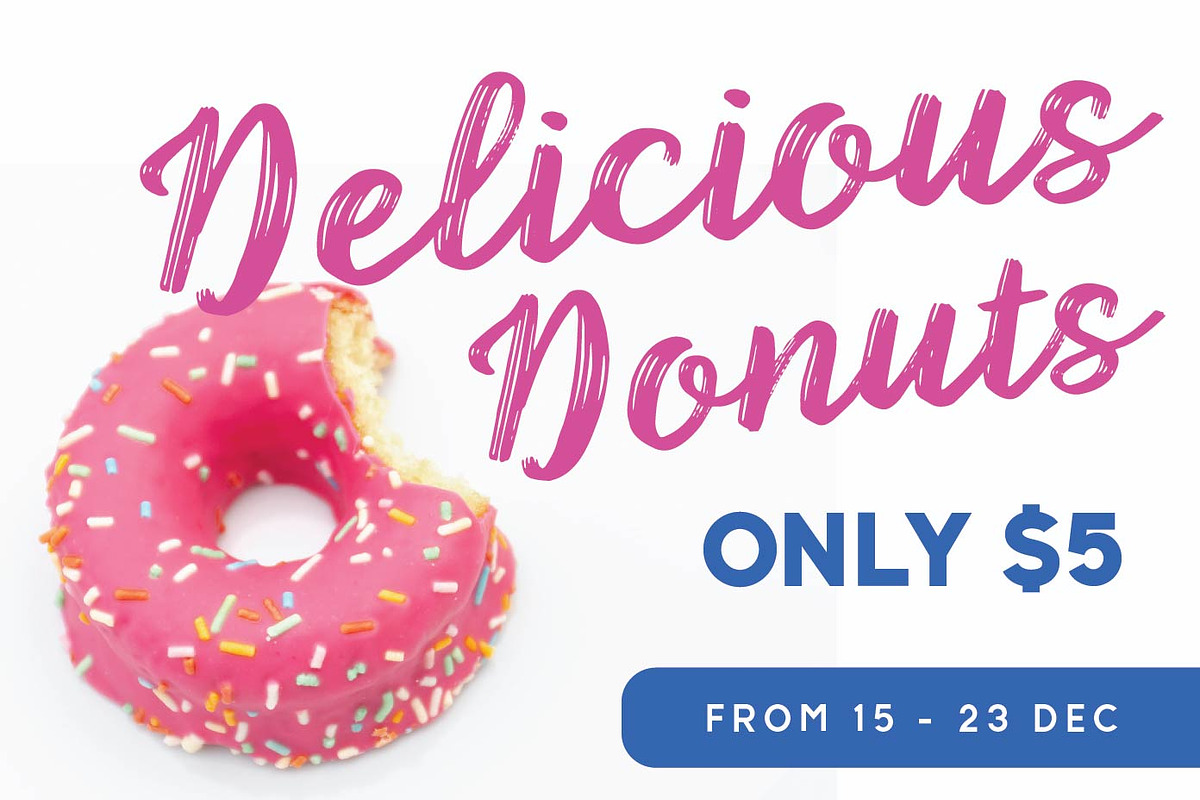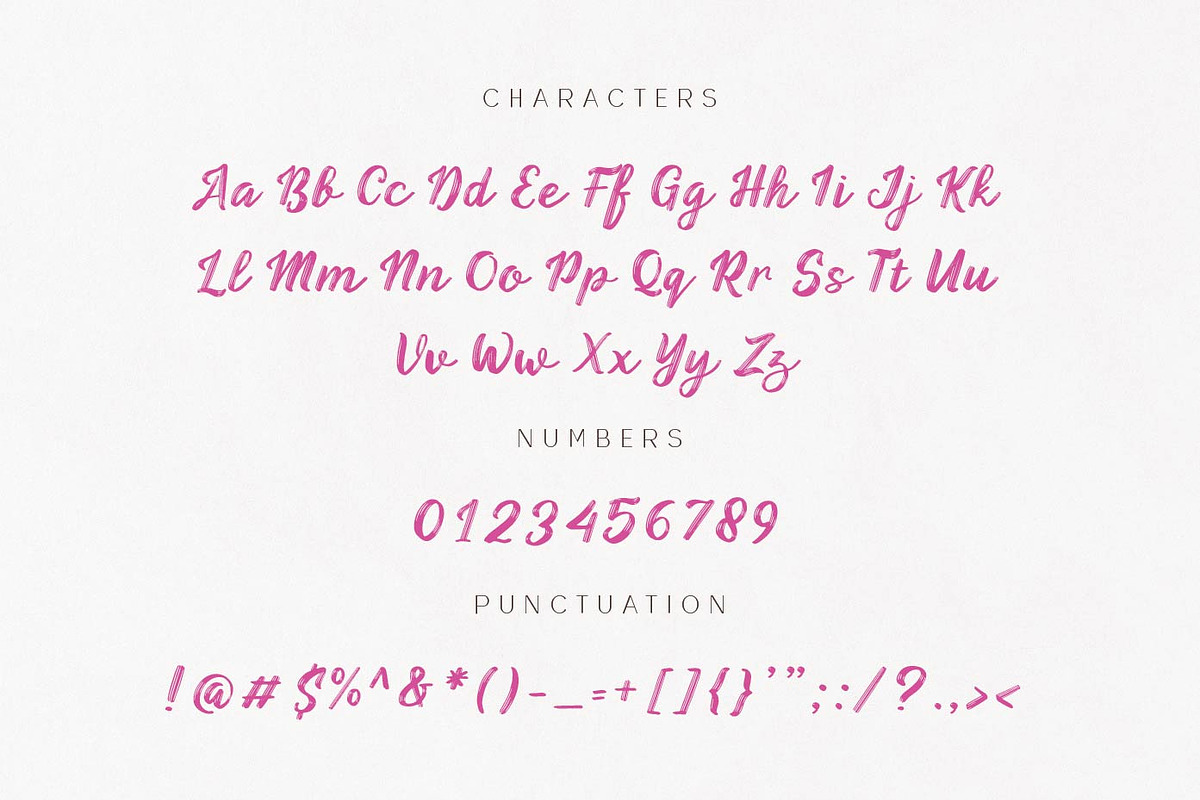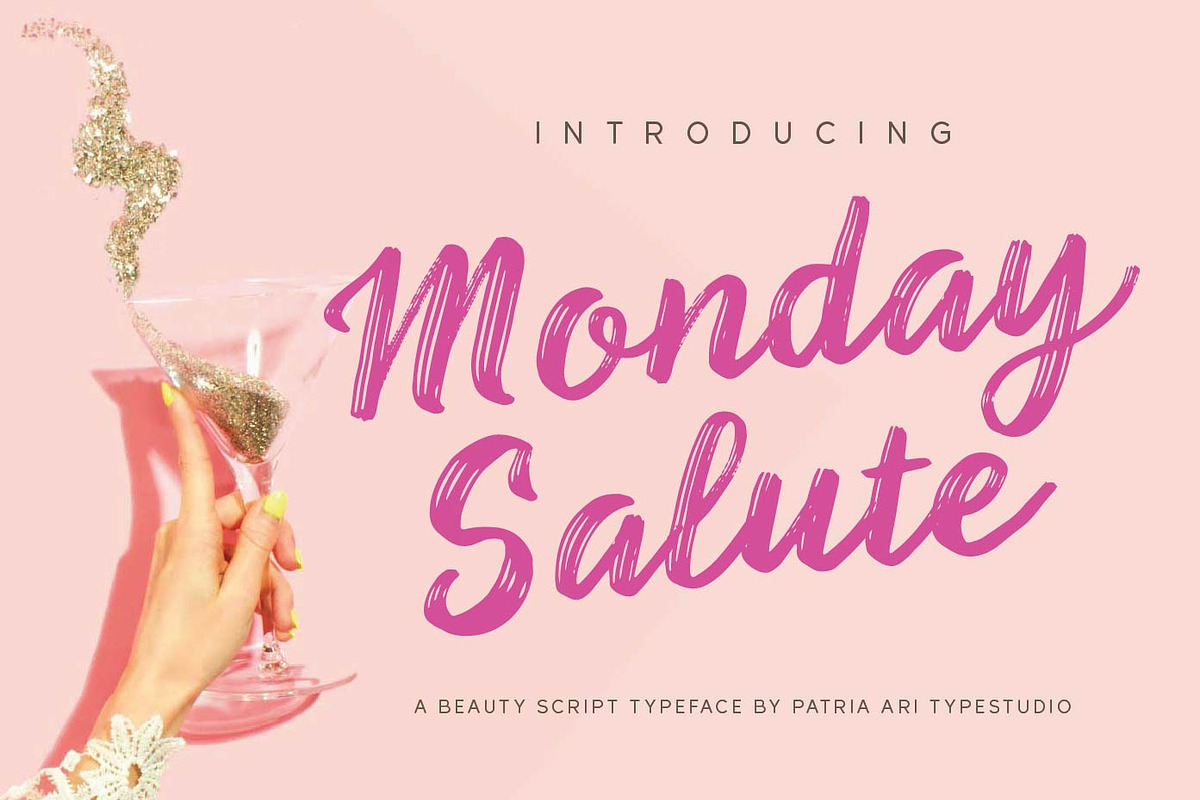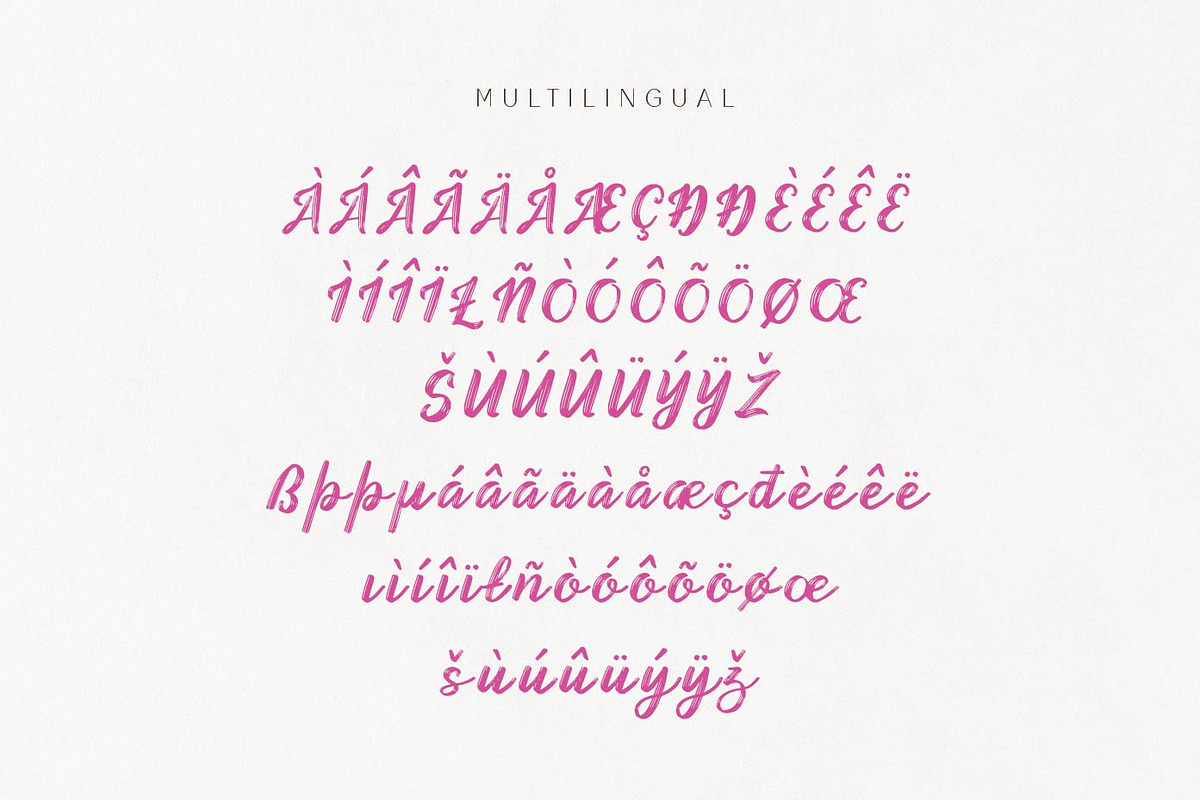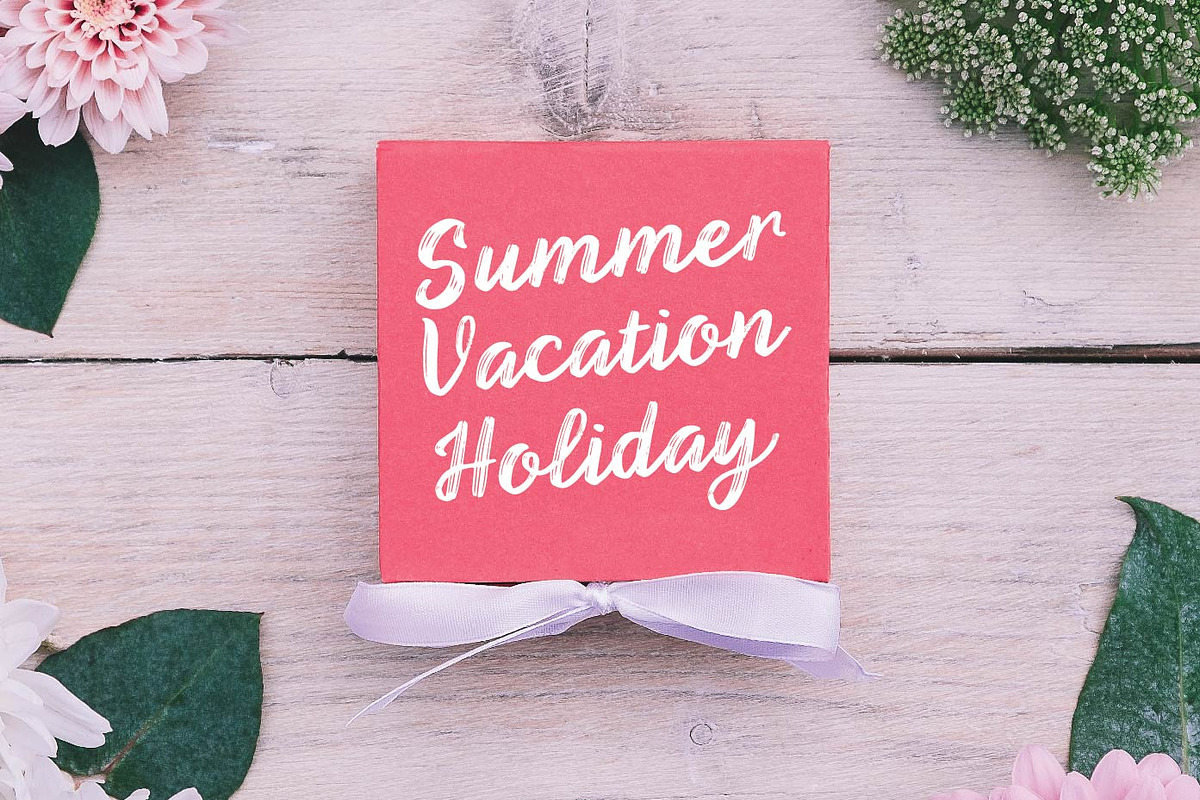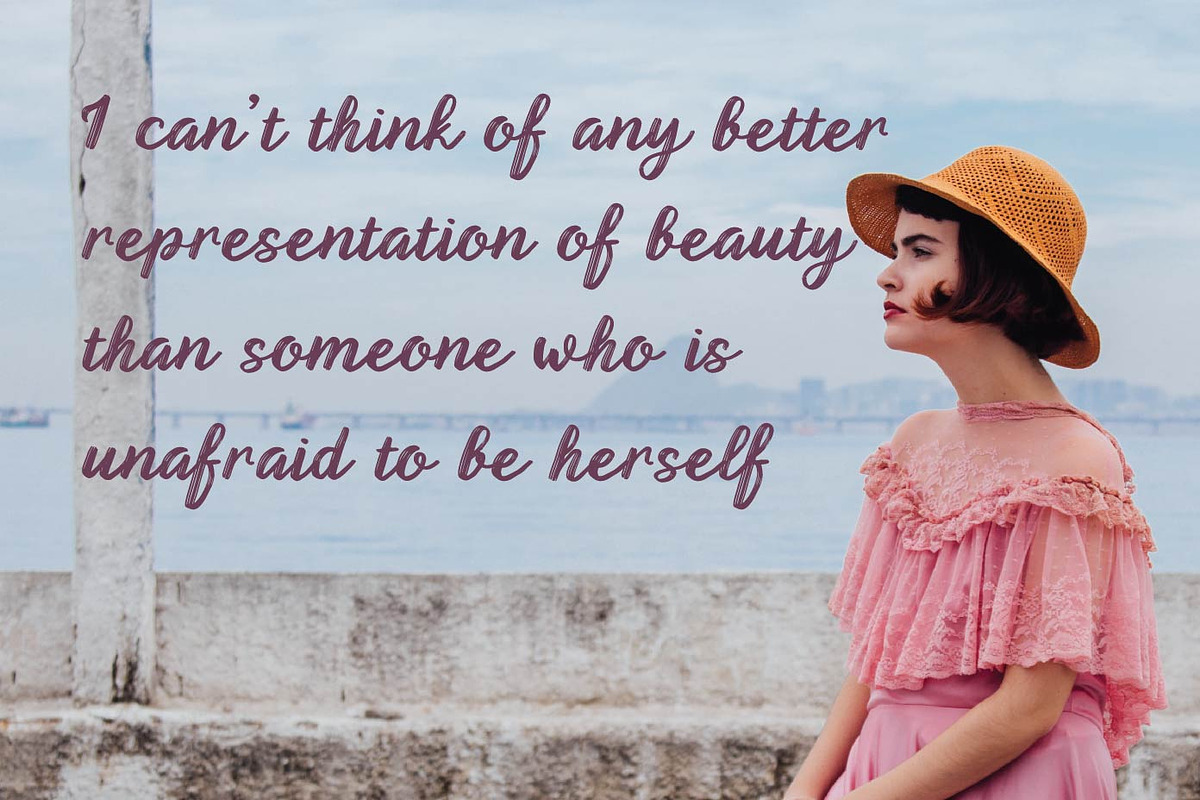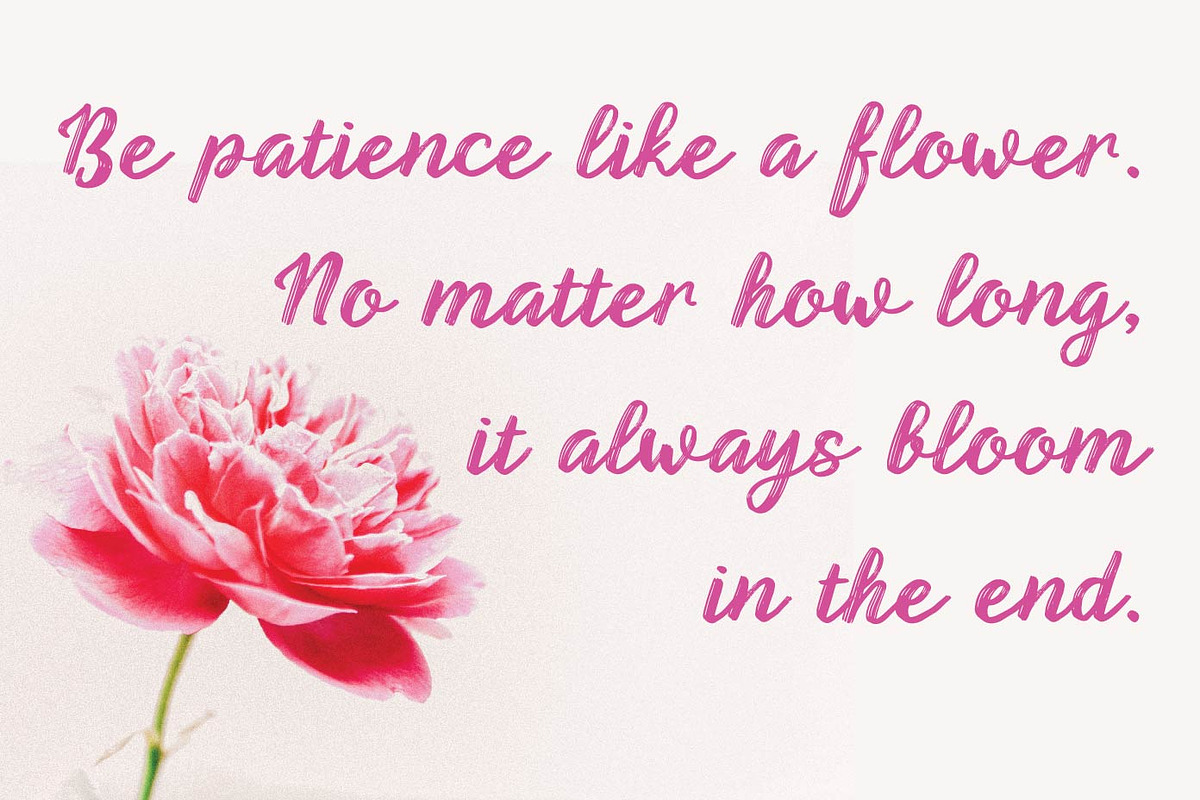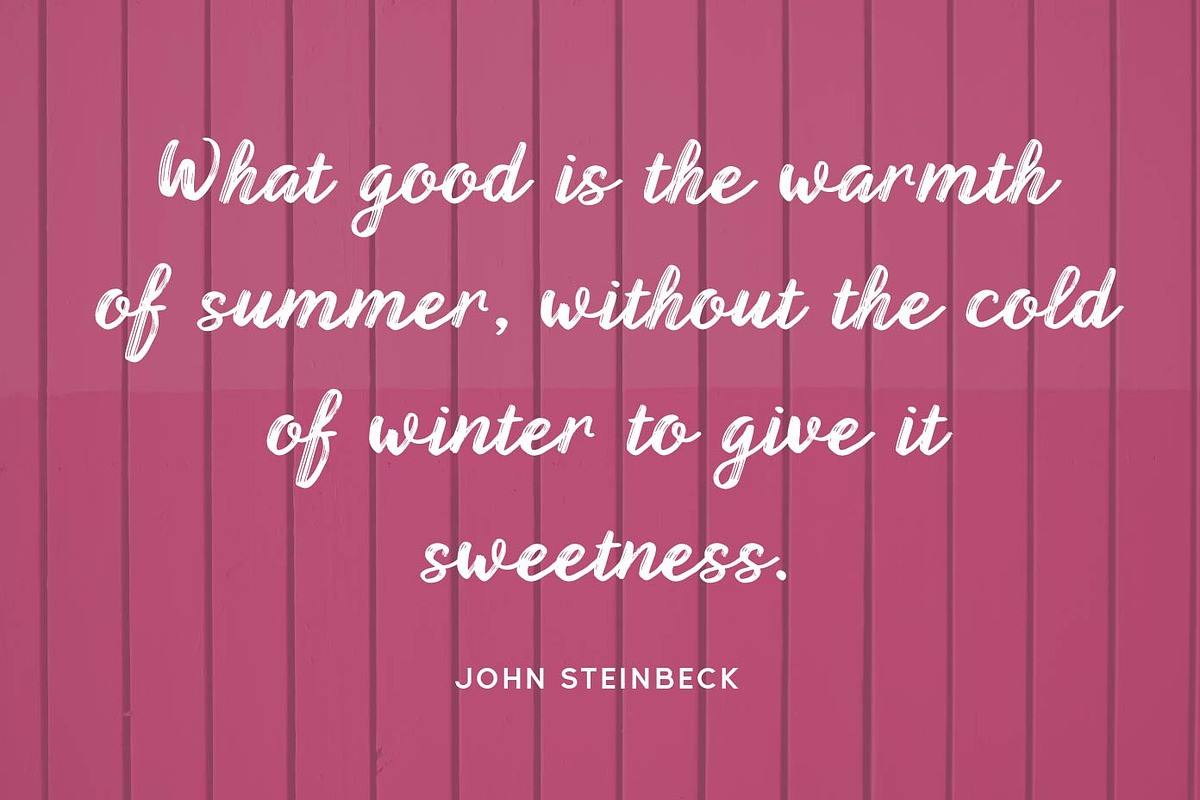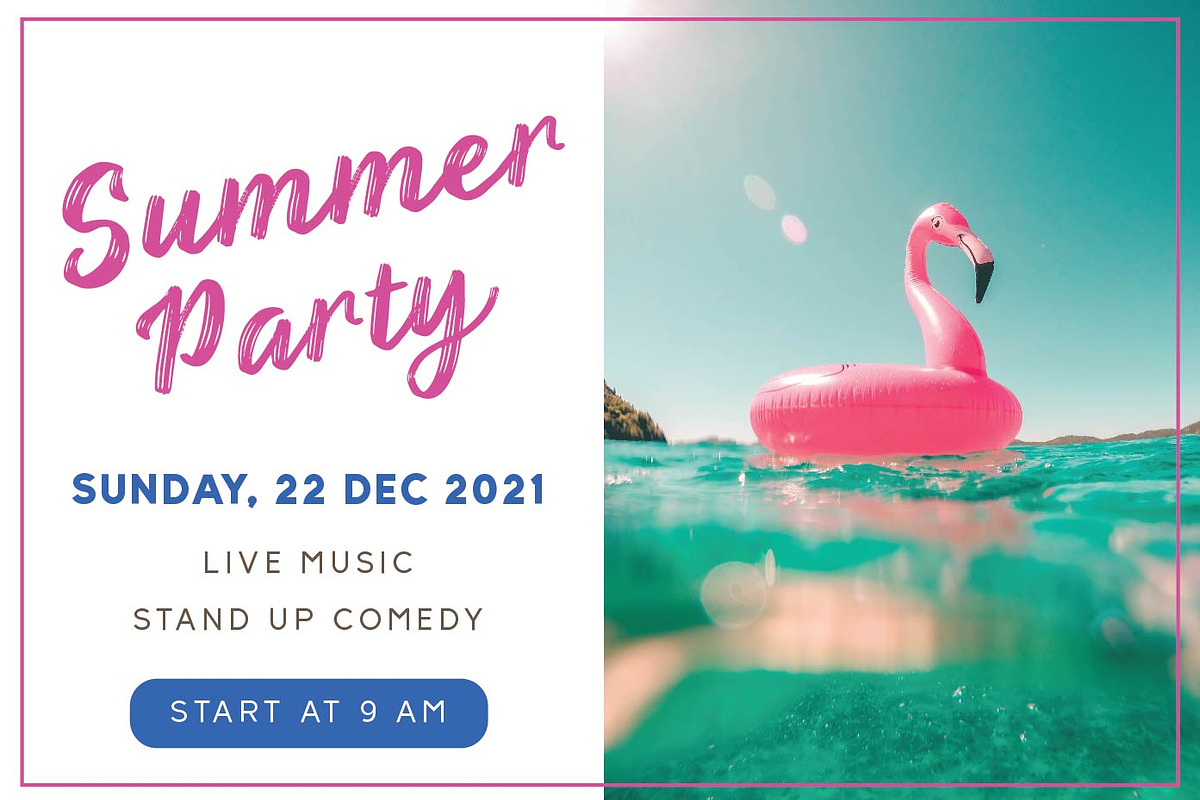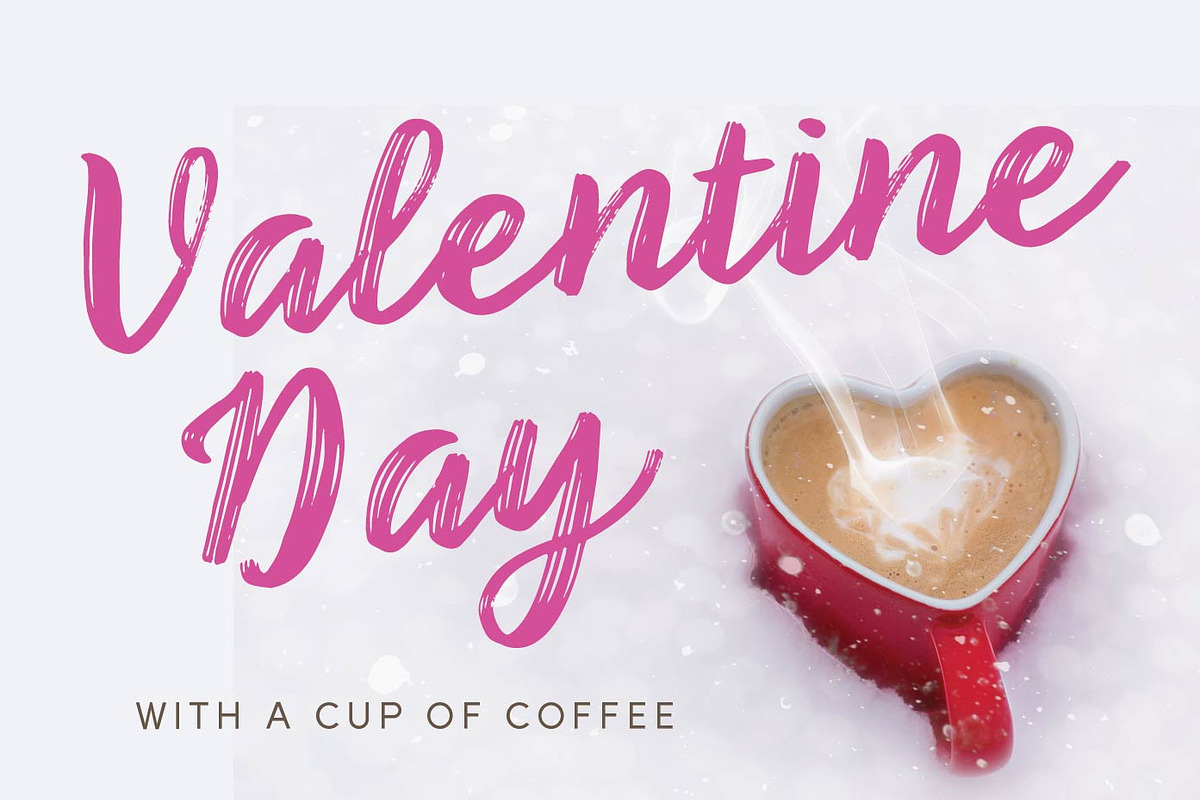
Monday Salute Cute Brushscript
Monday Salute is a pretty brush script typeface with emphasized in a feminine side.
Monday Salute is perfect for branding projects, logo, wedding designs, social media posts, advertisements, product packaging, product designs, label, photography, watermark, invitation, stationery and any projects that need handwriting taste.
Fonts featured :
Uppercase Lowercase Numbers Punctuation & symbols Accented characters